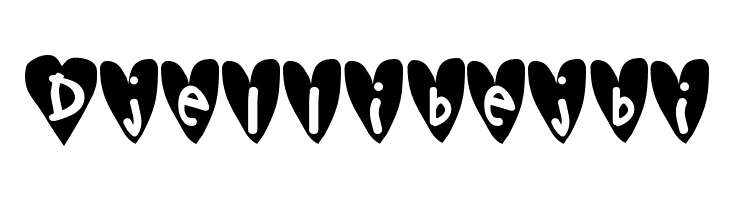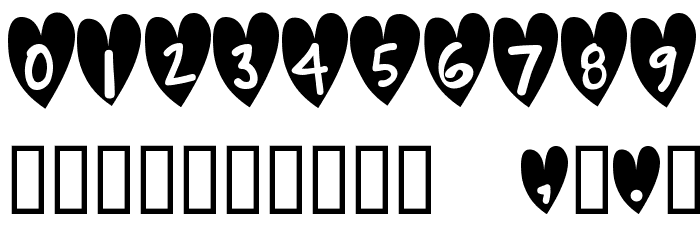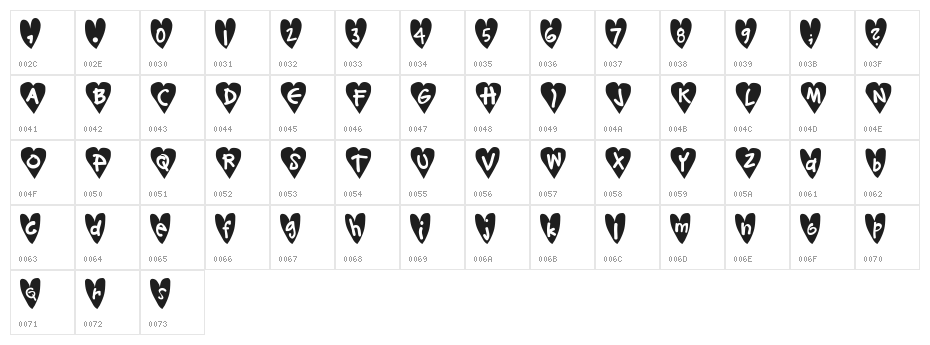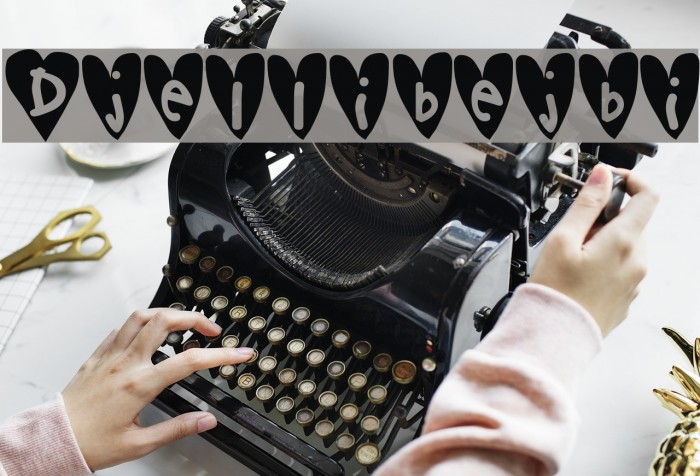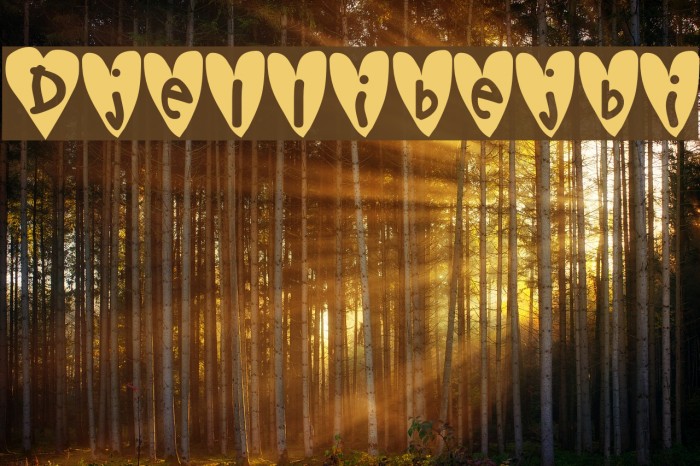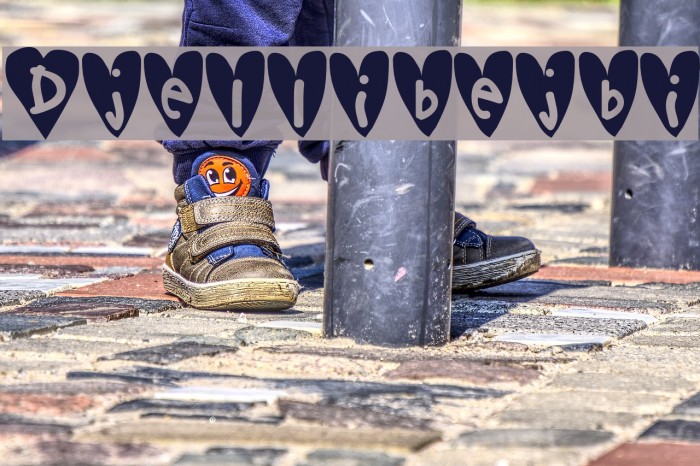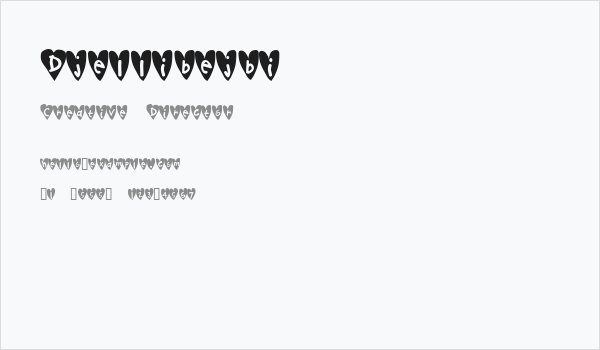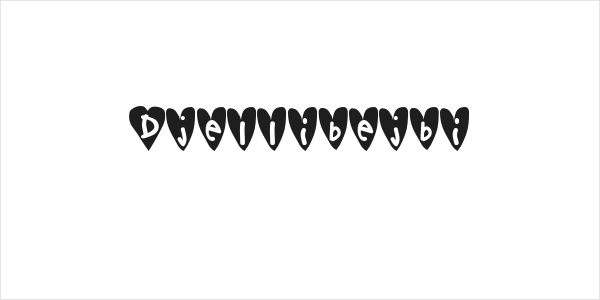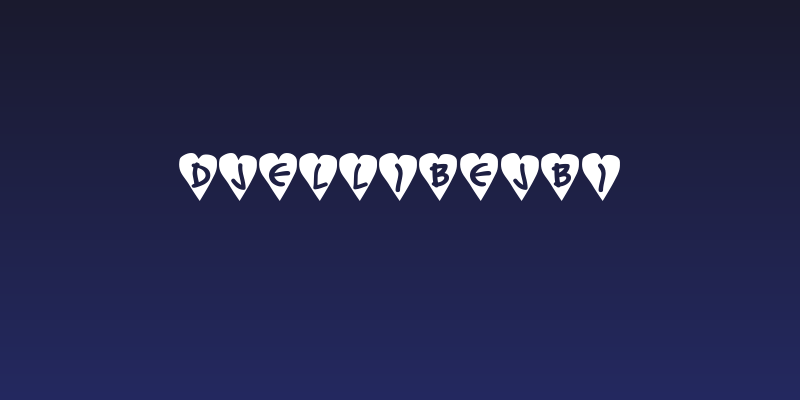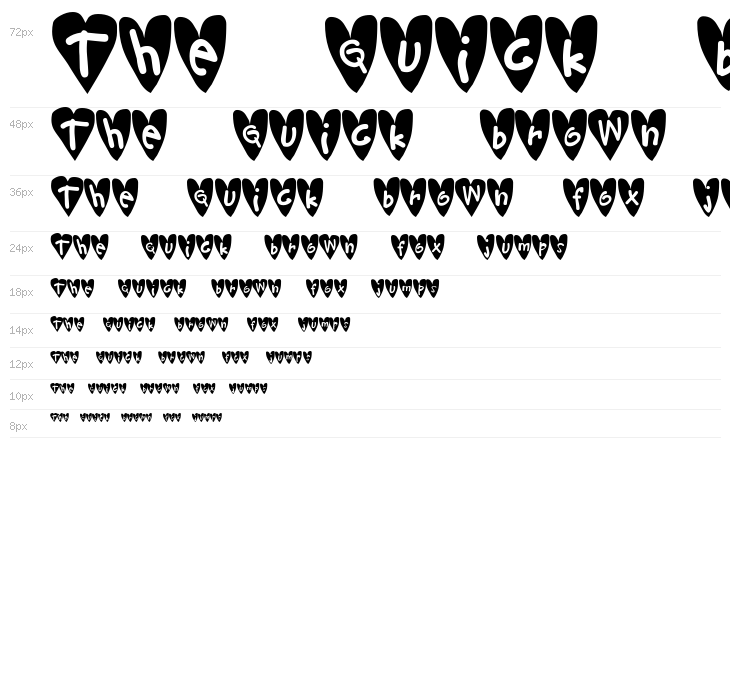
Djellibejbi Font
Djellibejbi Description
This playful and whimsical font features characters enclosed within heart shapes, creating a unique and charming appearance. The letters are bold and slightly irregular, adding to the font's quirky and fun style. The uppercase and lowercase letters maintain a consistent heart-shaped background, while the numbers and special characters follow the same design theme. This font is perfect for projects that require a touch of romance or playfulness, such as Valentine's Day cards, wedding invitations, or children's party invitations. Its decorative nature makes it ideal for headlines and short text rather than body copy.
| Overall Style | Playful, Romantic |
| Proposed Projects | Valentine's Day cards, wedding invitations, children's party invitations, playful branding. |